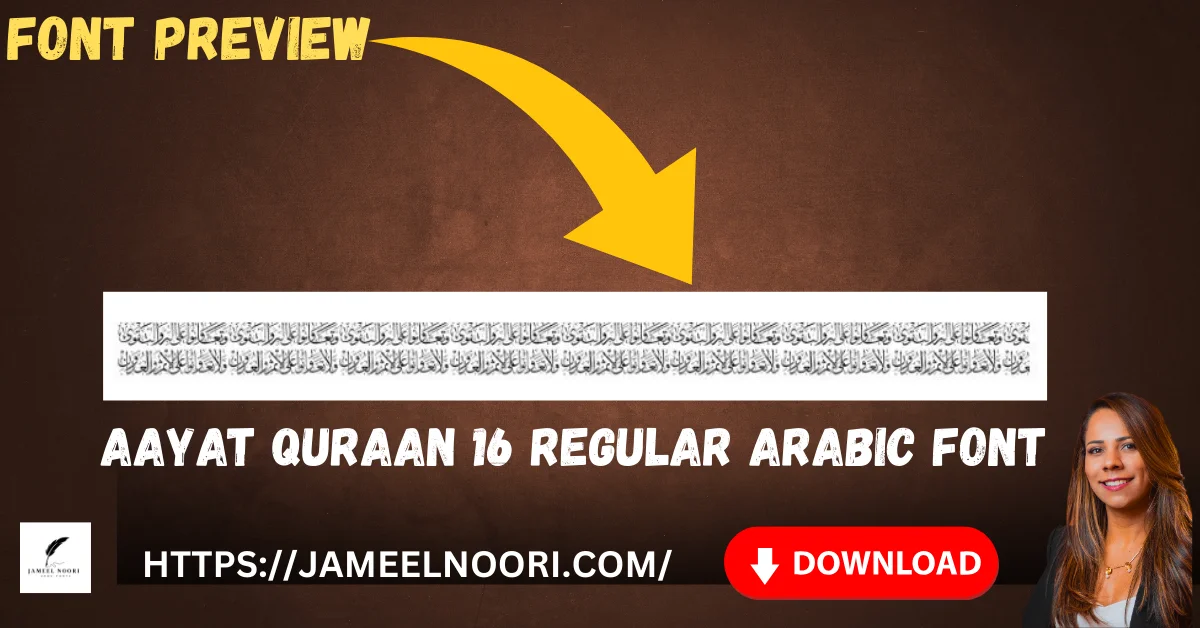
Aayat Quraan 16 Regular Arabic Font: The Ultimate Guide for Urdu and Arabic Font Lovers
Aayat Quraan 16 Regular Arabic Font is a stunning Regular TrueType Font specifically designed for Quranic calligraphy enthusiasts and Urdu font lovers. This font combines elegance with readability, making it perfect for both digital and print purposes. Many users in Pakistan, Lahore, and Karachi have downloaded this font for educational, religious, and design projects.
Features of Aayat Quraan 16 Regular Arabic Font
The Aayat Quraan 16 Regular Arabic Font offers a variety of features that make it an excellent choice for designers and calligraphy lovers:
• Elegant Quranic calligraphy style
• Easy to read in both small and large sizes
• High-quality vector curves and strokes
• Suitable for desktop publishing, websites, and social media graphics
Aayat Quraan 16 Regular Arabic Font – TrueType Font with High Readability
Enhance your design projects with Aayat Quraan 16 Regular Arabic Font, fully compatible with Urdu and Arabic fonts
The popularity of Aayat Quraan 16 Regular Arabic Font in Pakistan is due to its high-quality design and usability. Designers, teachers, and students frequently use it for:
• Creating educational Quranic materials
• Printing religious books and pamphlets
• Digital media designs for mosques or Islamic organizations
• Artistic calligraphy projects
Its compatibility with Urdu fonts and Arabic fonts makes it an expert choice for users in Karachi and Lahore, where demand for premium Arabic font downloads is high.
Best Uses of Aayat Quraan 16 Regular Arabic Font
The Aayat Quraan 16 Regular Arabic Font is versatile and can be used in:
• Quranic educational books and worksheets
• Islamic greeting cards and social media posts
• Mosque banners and event posters
• Web design with Arabic or Urdu fonts
• Graphic design projects requiring elegant calligraphy
Numbered List:
1. Educational content for students
2. Social media and marketing campaigns
3. Personal calligraphy projects
4. Religious publications
Comparison with Other Arabic Fonts
When compared to other Arabic fonts, Aayat Quraan 16 Regular Arabic Font stands out due to:
• High readability and aesthetic elegance
• Better compatibility with Urdu fonts
Tips for Using Aayat Quraan 16 Regular Arabic Font
The Aayat Quraan 16 Regular Arabic Font is the best choice for designers, educators, and calligraphy enthusiasts in Pakistan. Its compatibility with Urdu fonts, Arabic fonts, and versatile usage makes it a top pick for all types of projects. Whether you are designing digital graphics or printing Quranic materials, this font ensures elegance, readability, and professional results.